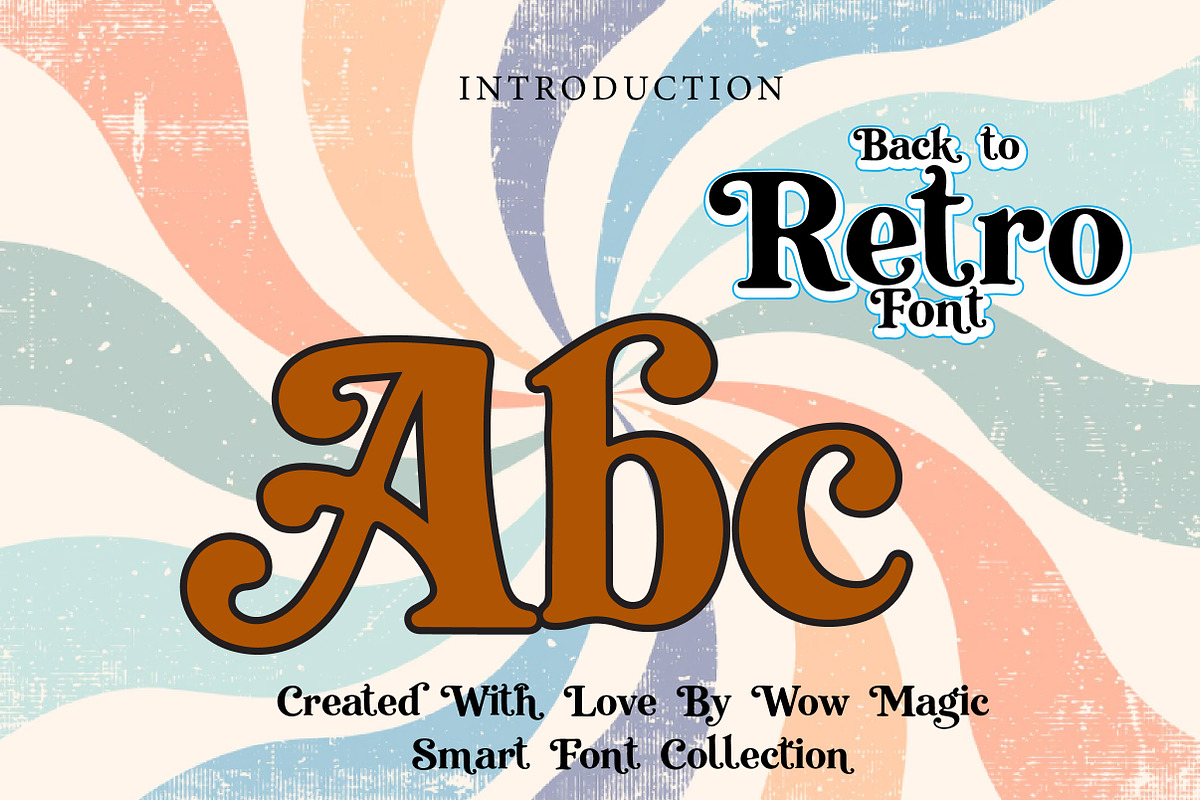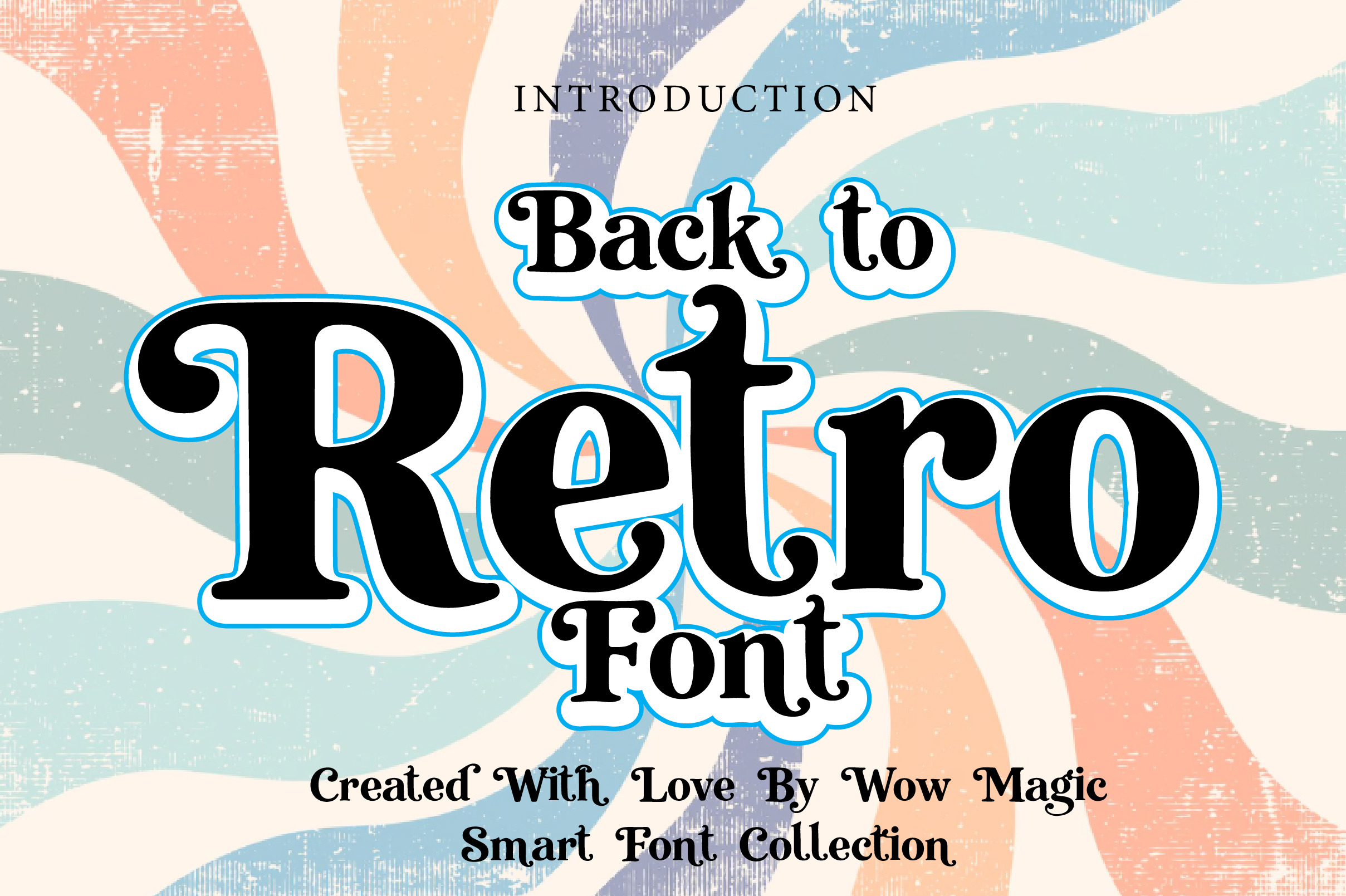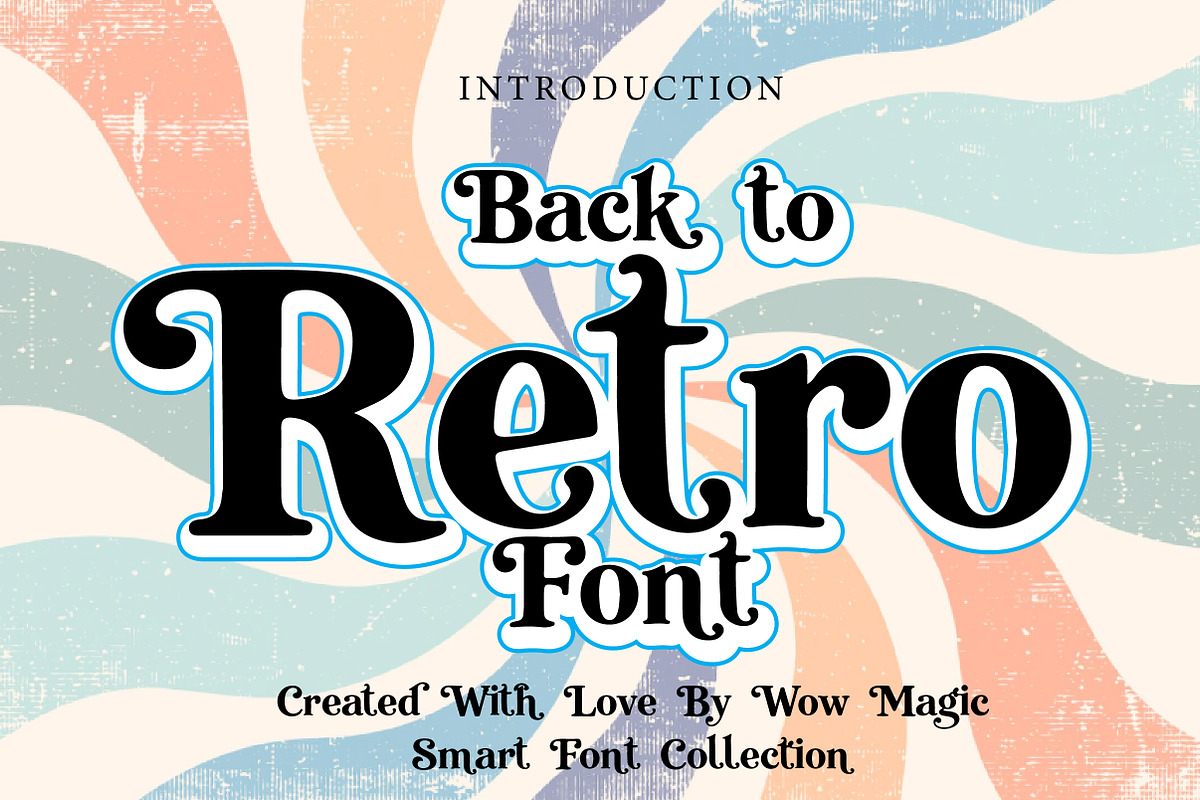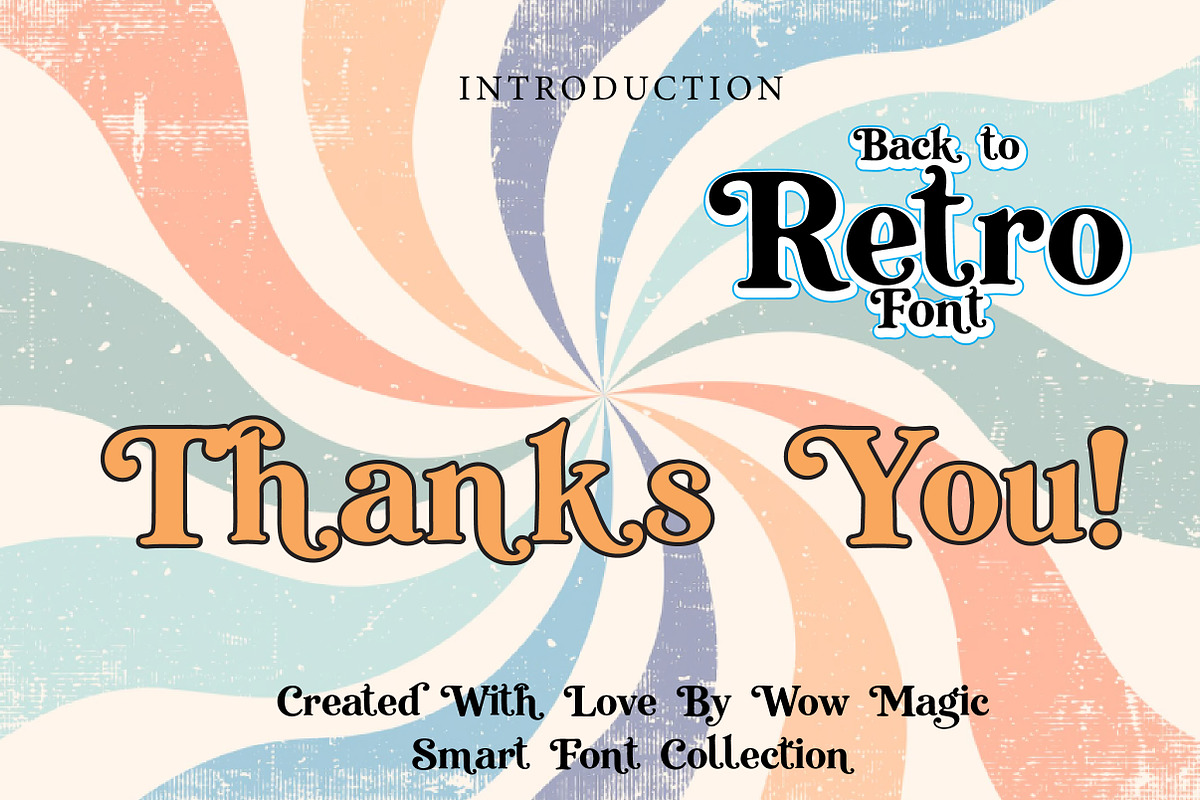
Back to Retro Font
Back to Retro Font is a charming vintage display typeface inspired by classic retro signage, nostalgic packaging, and old-school editorial design. With its bold serif structure, soft curved terminals, and decorative personality, this font captures the warm and timeless spirit of mid-century typography.
The letterforms feel both elegant and playful, making it perfect for retro branding, café logos, packaging, posters, book covers, social media graphics, and stylish headline designs. Its nostalgic character adds a familiar vintage mood while still feeling clean and usable for modern creative work.
Back to Retro Font is ideal for designers who want to bring a classic throwback feel to their projects. Whether you are creating a vintage brand identity or a bold retro poster, this typeface adds personality, charm, and timeless appeal.